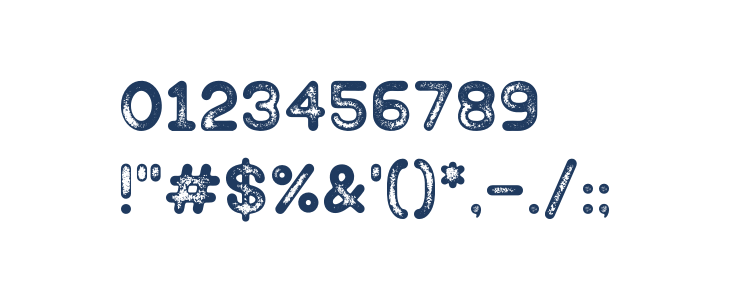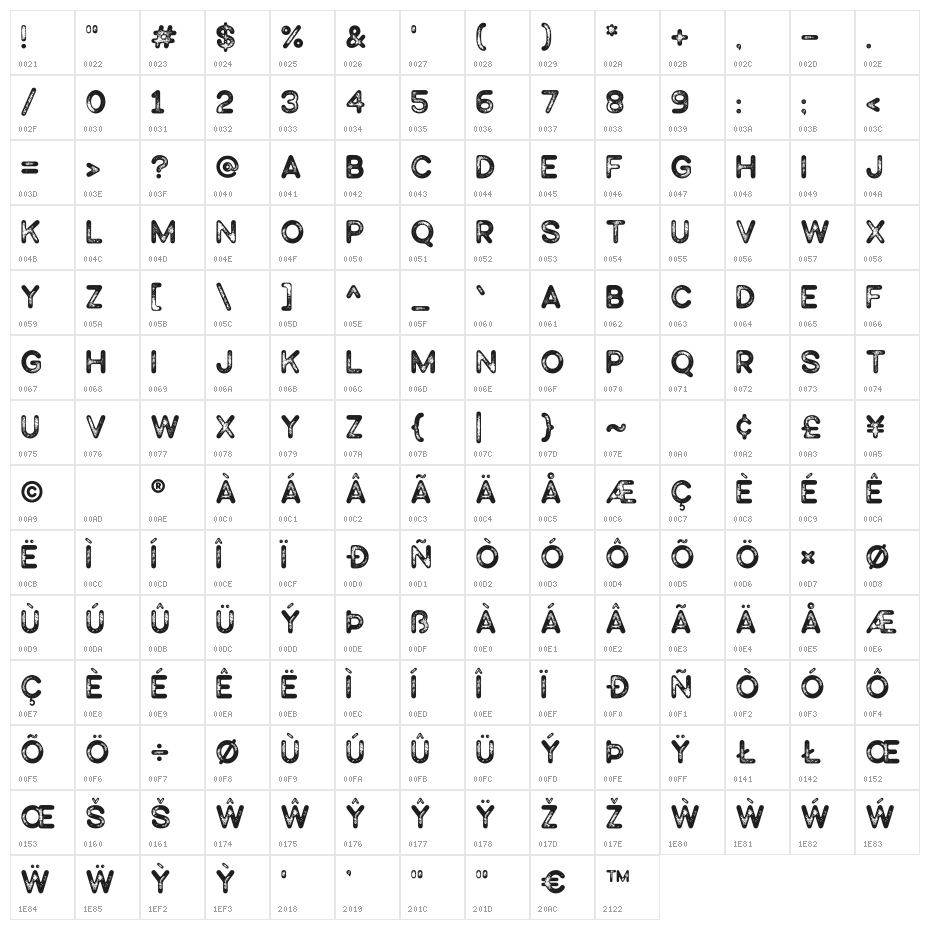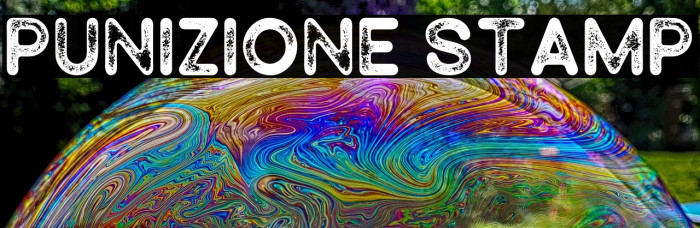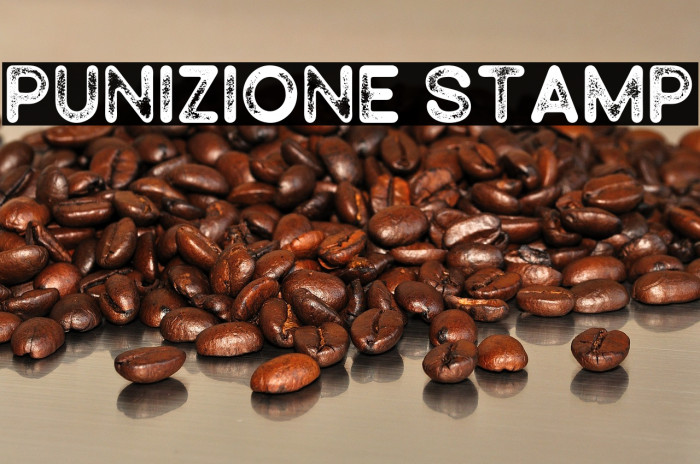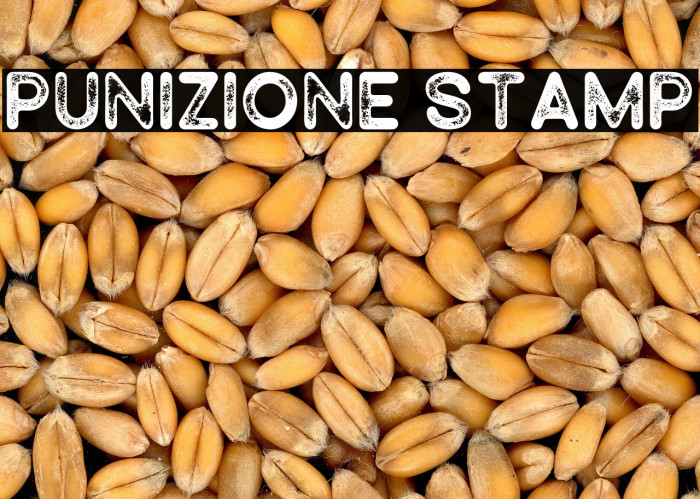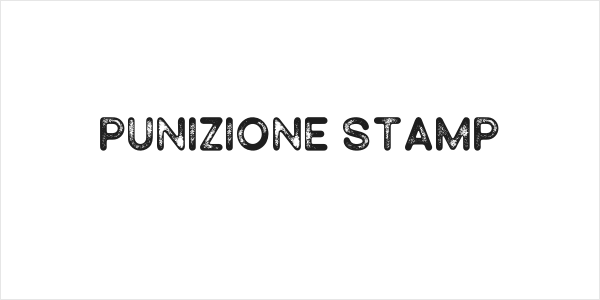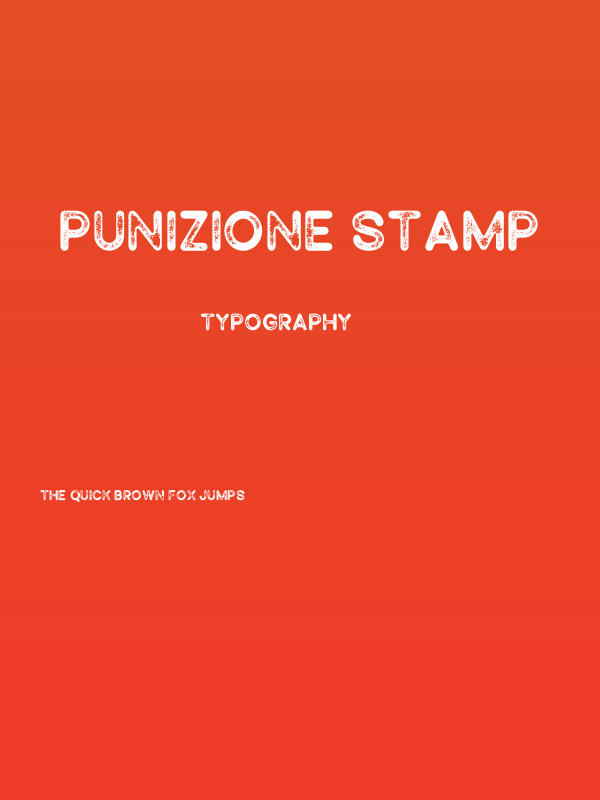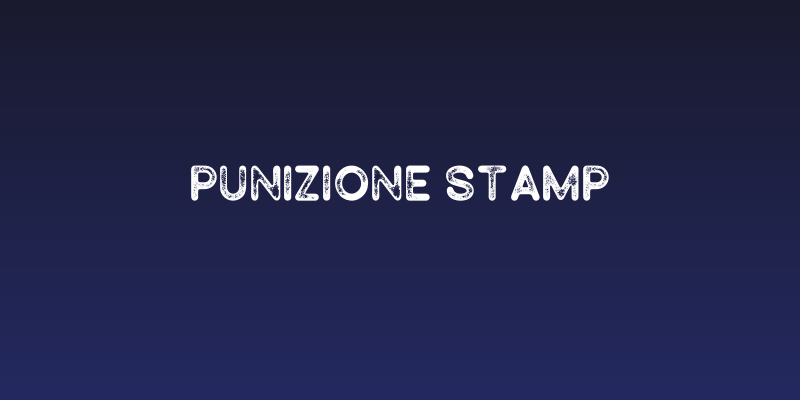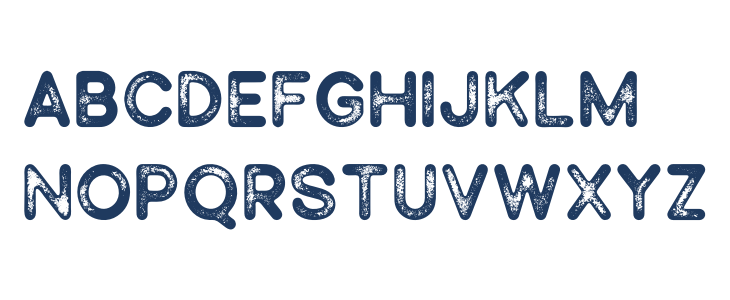
Punizione Stamp Font
Punizione Stamp Description
This font features a bold, distressed style with a textured appearance that gives it a vintage, worn-out look. The characters are uniformly bold with a consistent thickness, yet the distressed texture adds a unique, rugged charm. The uppercase and lowercase letters maintain a cohesive design, making it versatile for various creative projects. The numbers and special characters follow the same stylistic approach, ensuring a harmonious visual experience. This font's distinctive style makes it ideal for projects that require a rustic or retro aesthetic.
| Use Case | Logos, Posters, Branding |
| Proposed Projects | Ideal for vintage-themed posters, branding, logos, and packaging designs that require a rustic or retro touch. |